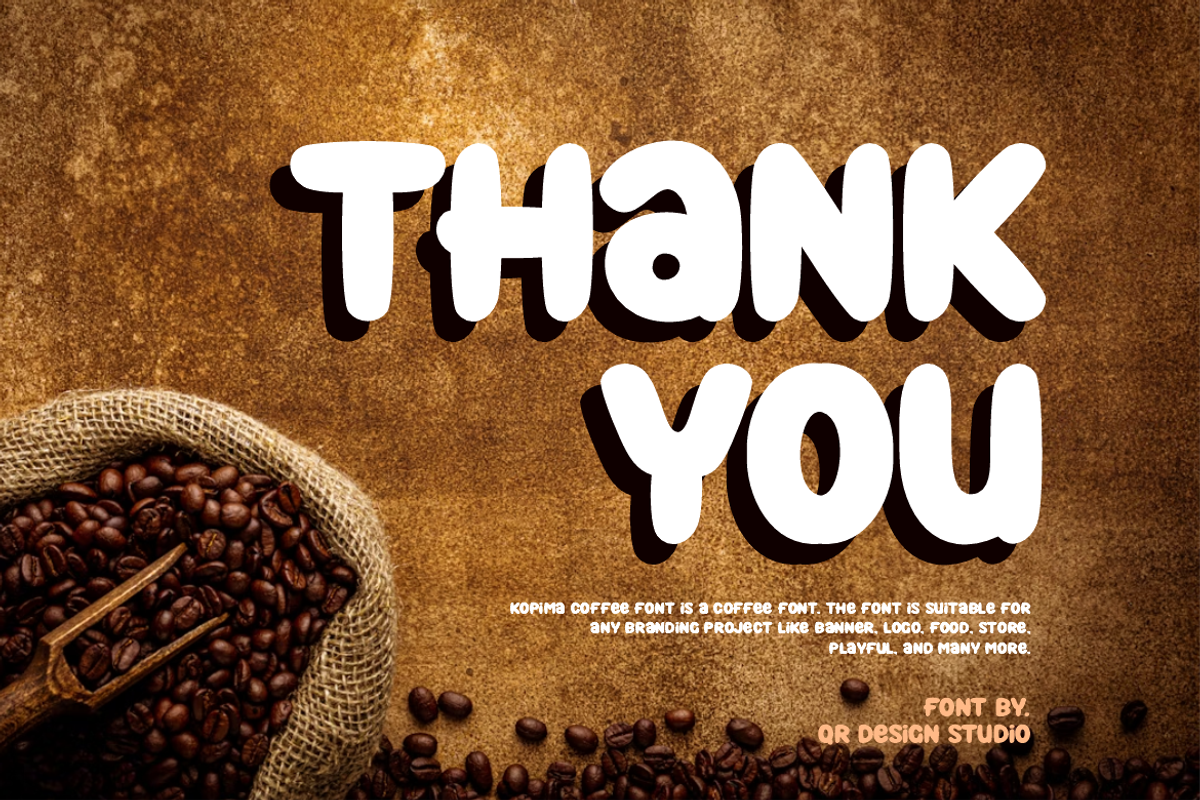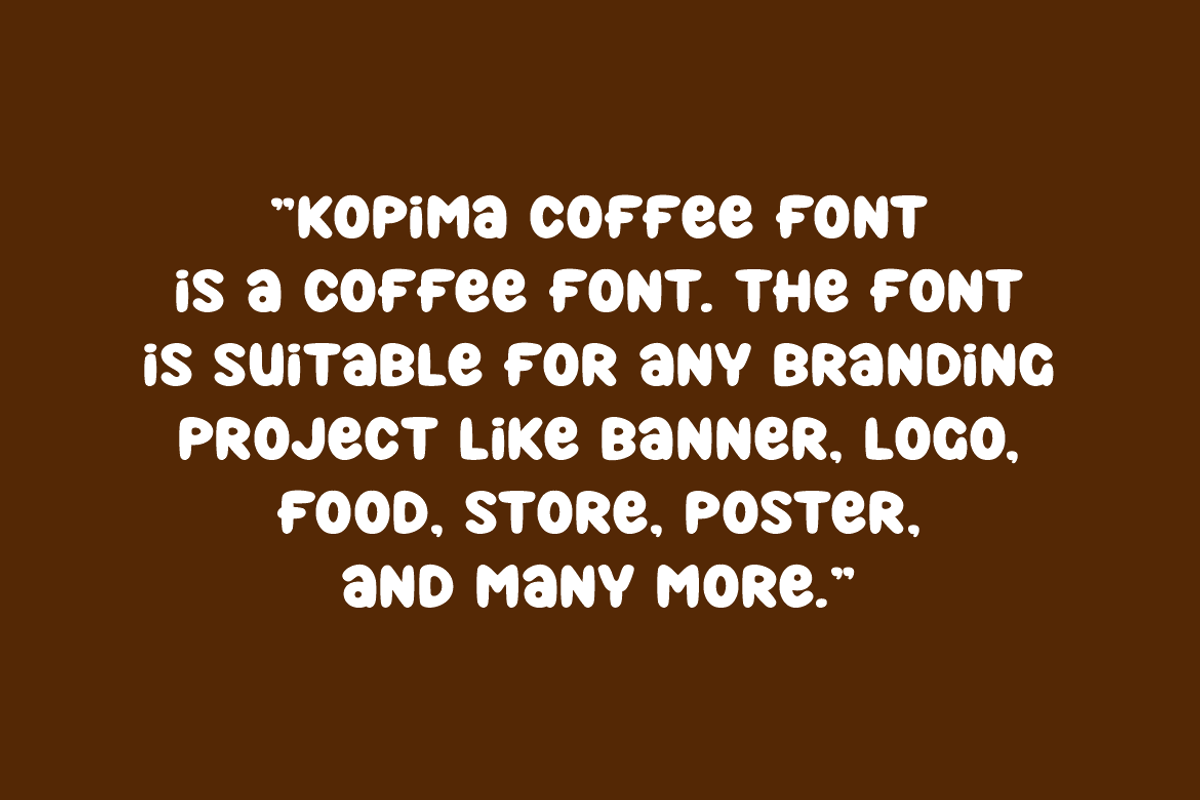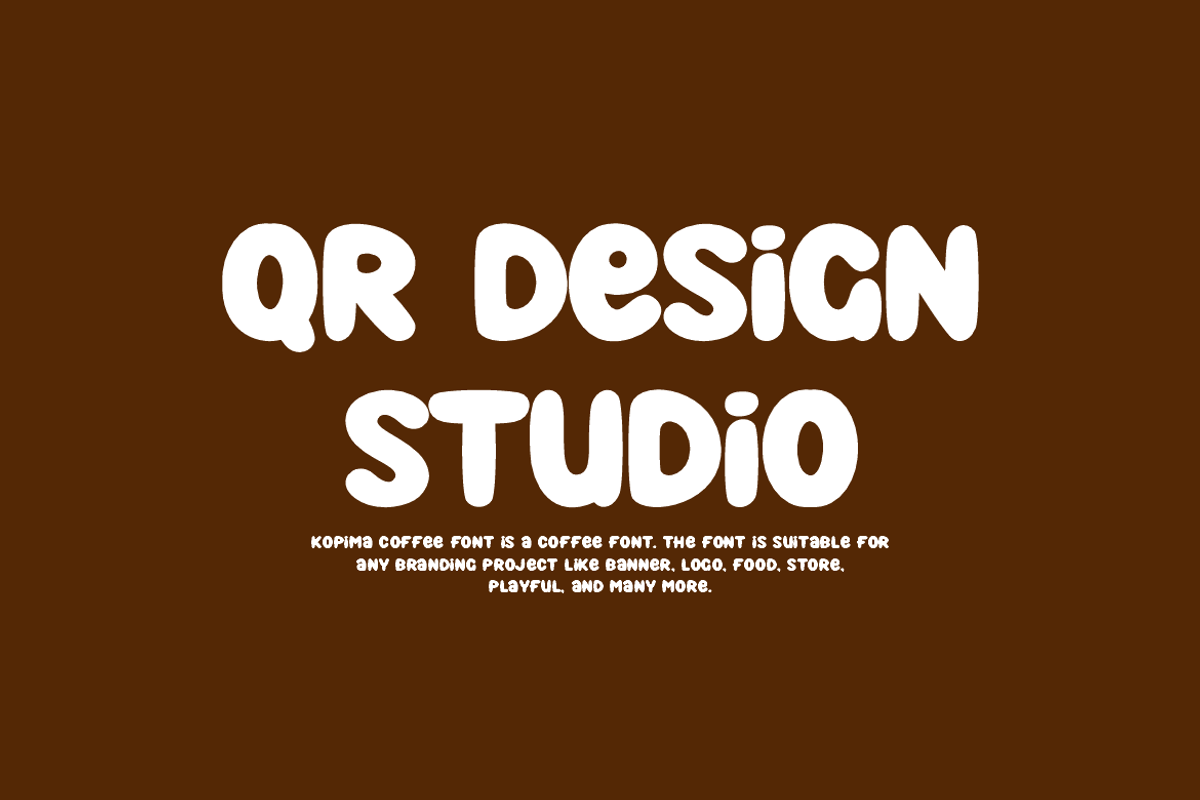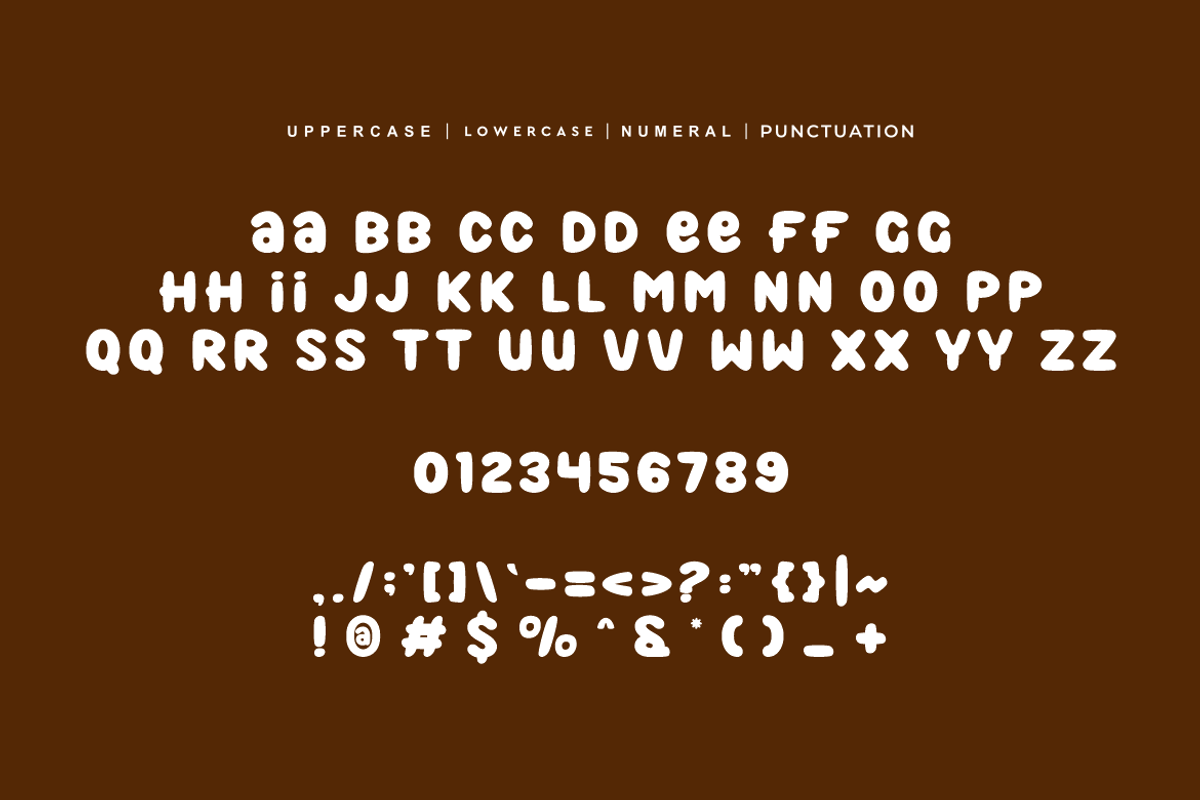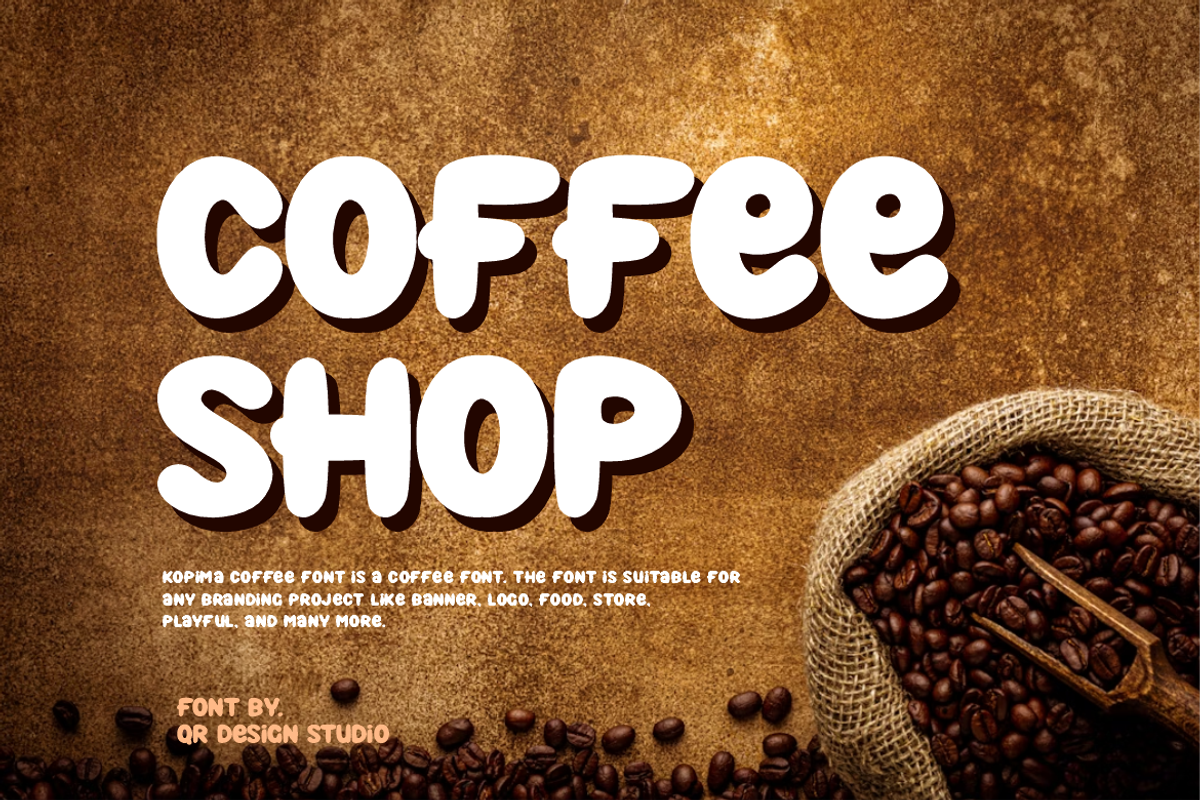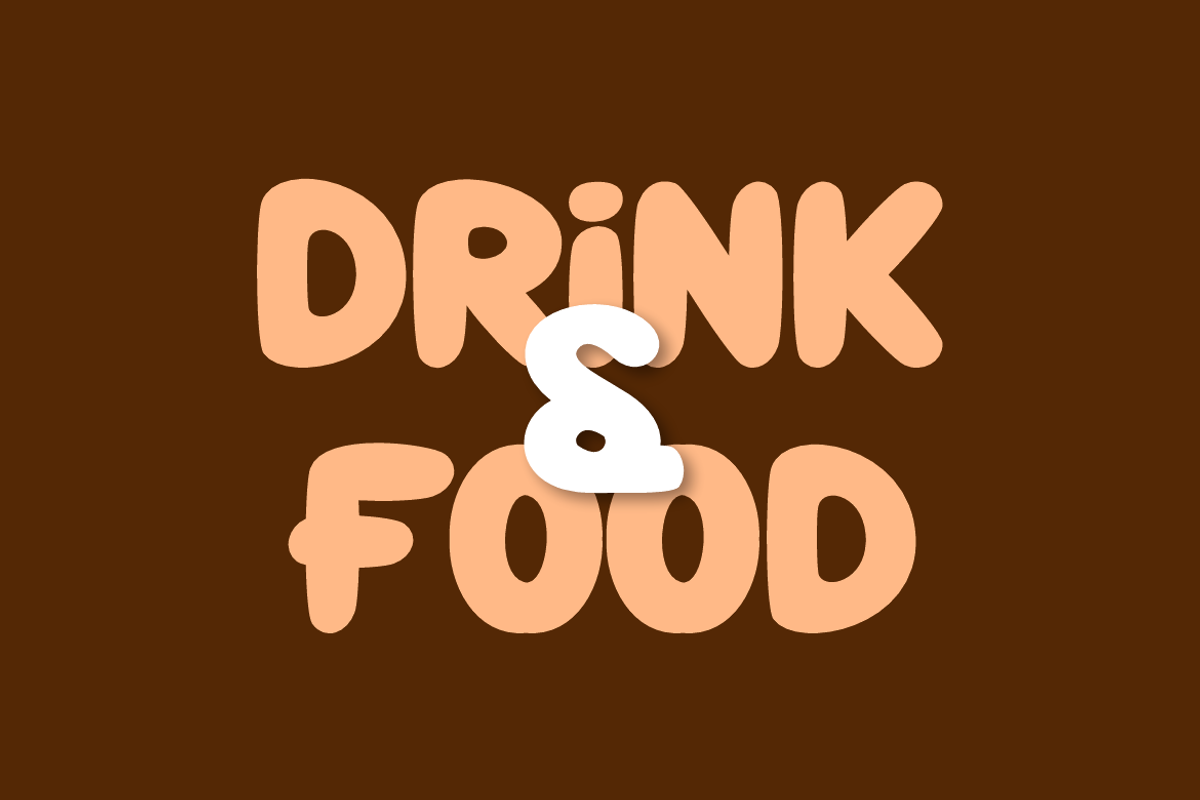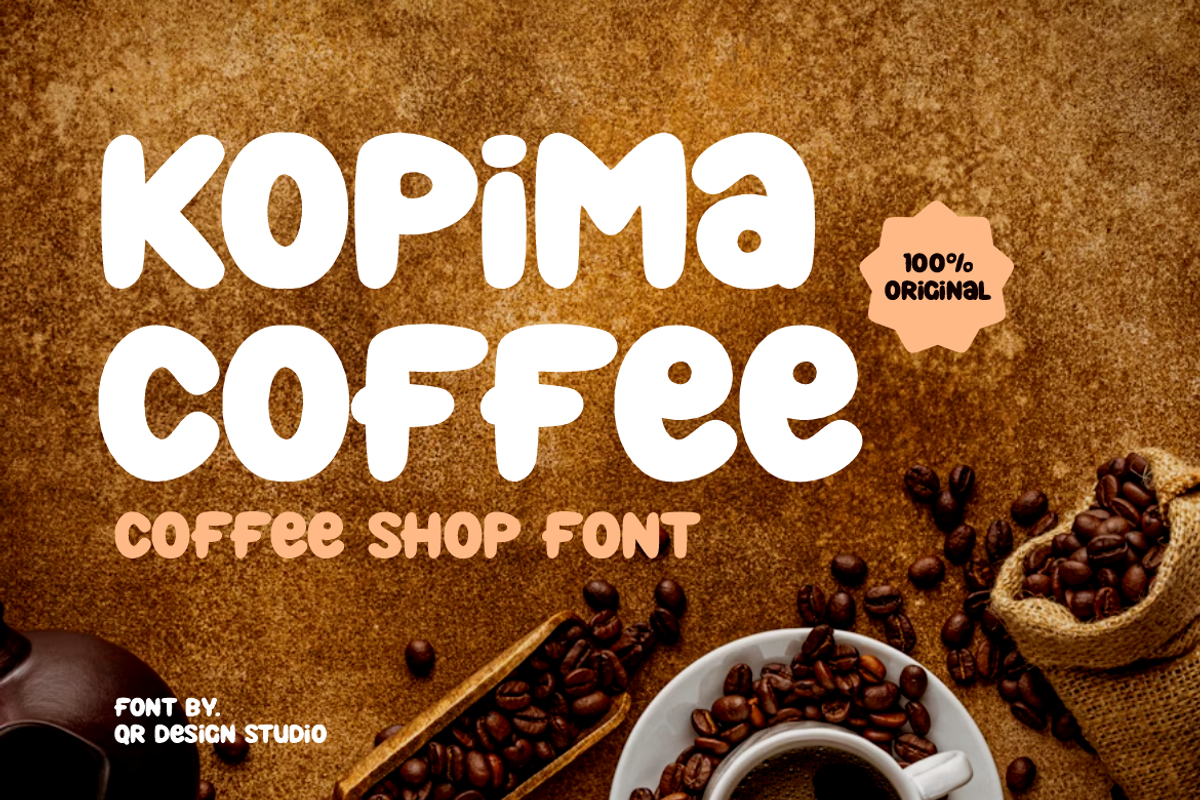
Kopima Coffee Font
Kopima Coffee Font is a bold and authentic display font. The font is suitable for any branding project like poster, logo, food, drink, and many more. Outstanding in a wide range of contexts.